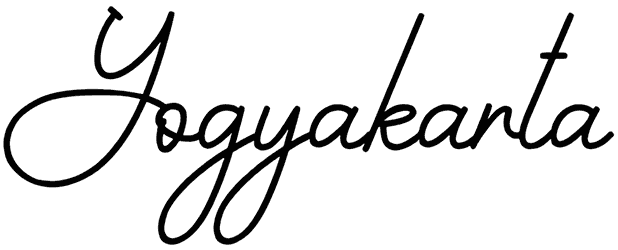
To give your audience a living and relaxed mood, using a handwritten font would be what you lack. Yogyakarta, with its slim pen style, is a nice and pretty draft to show your unique taste. With this calligraphy font, many designs from formals to casuals, like presentations, posters, and social media posts, will get an elegant face and, of course, a lot of attention.